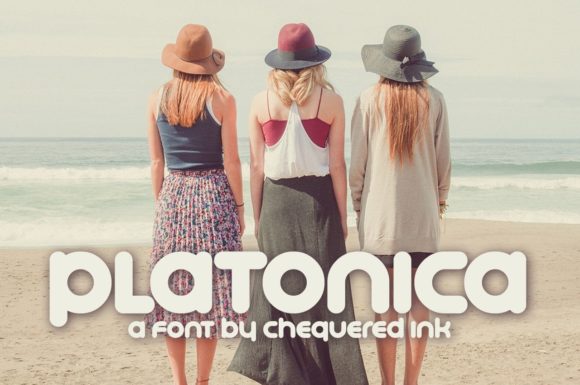
Unleash your creativity with Platonica Font, a captivating sans serif font family that exudes charm and playfulness. Handcrafted by Chequered Ink, Platonica's soft, rounded edges and cheerful demeanor make it a perfect choice for designers seeking a touch of whimsy and warmth.
Immerse yourself in a world of endless possibilities with Platonica's versatile character set. Whether you're crafting eye-catching posters, creating playful logos, or designing enchanting invitations, Platonica effortlessly adapts to your vision, adding a touch of fun and uniqueness to every project. Its charming curves and lively personality make it the perfect companion for bringing life to your creative endeavors.
Elevate your designs with Platonica's remarkable legibility. Each character is meticulously crafted to ensure clarity and readability, even at smaller sizes. Its well-balanced letterforms and generous spacing make it easy on the eyes, ensuring your messages are conveyed clearly and effectively. Whether it's a captivating poster or an informative brochure, Platonica ensures your words shine, leaving a lasting impression on your audience.
With Platonica, simplicity meets sophistication. Its clean lines and unadorned style allow your designs to breathe and your message to take center stage. Experience the joy of creating designs that are both aesthetically pleasing and impactful. Platonica's versatility makes it a perfect choice for a wide range of projects, from playful illustrations to elegant branding.
Embark on a creative journey with Platonica Font. Let its playful spirit ignite your imagination and transform your designs into enchanting works of art. Its versatility empowers you to explore endless possibilities, while its charm ensures your message is conveyed with warmth and personality. Embrace the magic of Platonica and unlock a world of creative possibilities today!